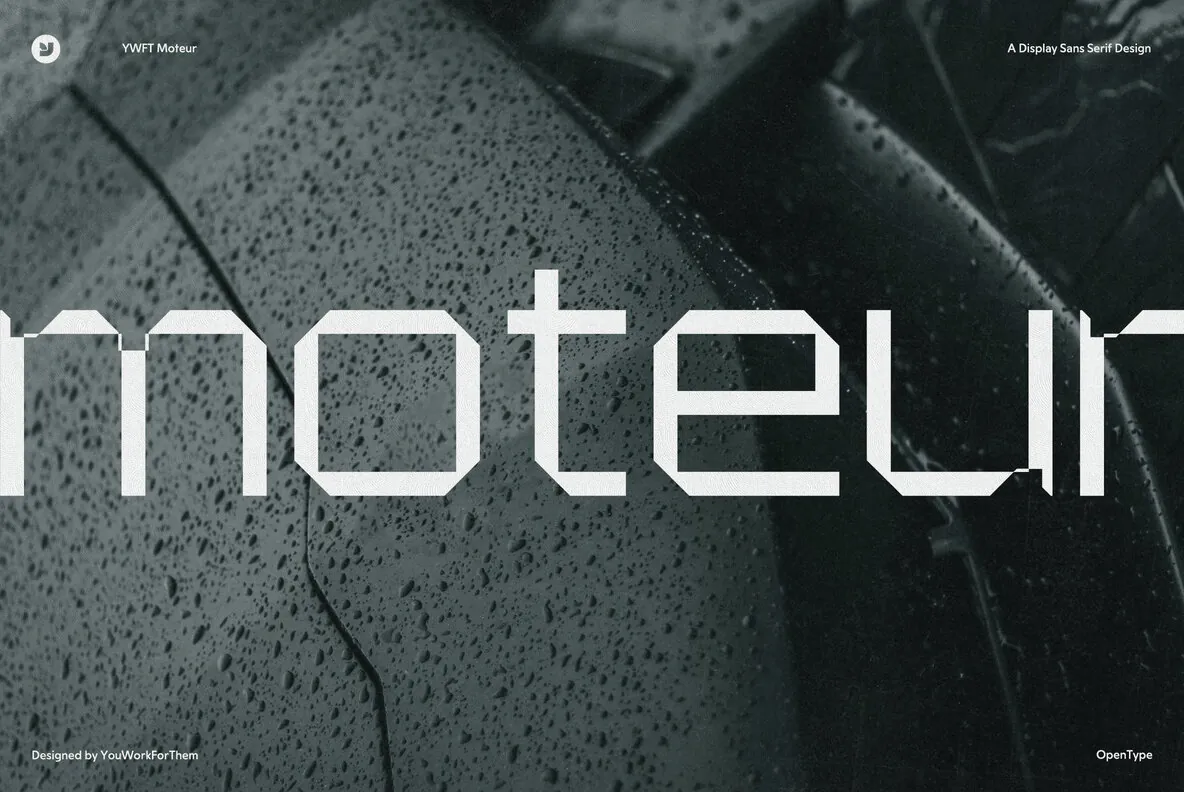
Embrace the Mechanical Elegance of YWFT Moteur
Discover the unique charm of YWFT Moteur, a typeface that began its journey as a technical and retro design reminiscent of mechanical workmanship. Its evolution from Alloy to the later version, YWFT Maetl, marks a significant contribution to the world of typography.
A Tribute to Wim Crouwel’s Typographic Brilliance
YWFT Moteur is not just a font; it’s a homage to the legendary type designs of Wim Crouwel. It transcends his legacy by integrating the essence of French and German mechanical aesthetics into its design, making it perfect for a modern design landscape that values both history and innovation.
Engineered for Impactful Headlines
Whether it’s an avant-garde poster or a bold headline, YWFT Moteur delivers with its engine-like robustness. Since its conversion to OpenType in 2010, this font has only expanded its versatility and ease of use across various platforms and projects.
A Stalwart in Gaming Culture
With a storied past featuring heavy use in the ‘Playstation’ magazine during the early 2000s, YWFT Moteur carries with it a legacy of gaming culture. It’s not just a typeface; it’s a piece of design history that resonates with energy and motion.